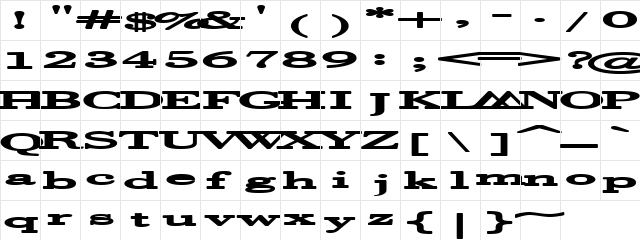
Halcyonia Regular
Design Context for Halcyonia Typeface
Halcyonia is a composed and adaptable typeface that performs quietly and consistently across a wide range of design contexts.